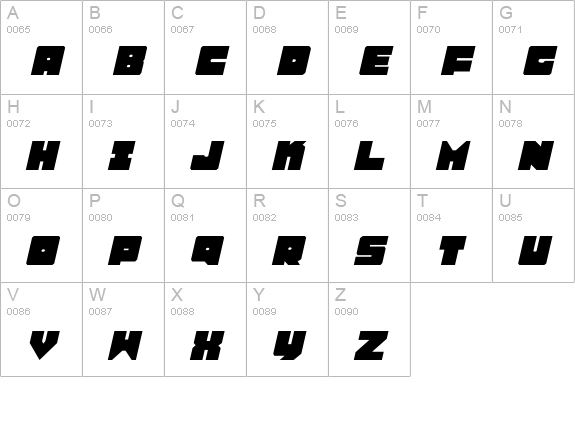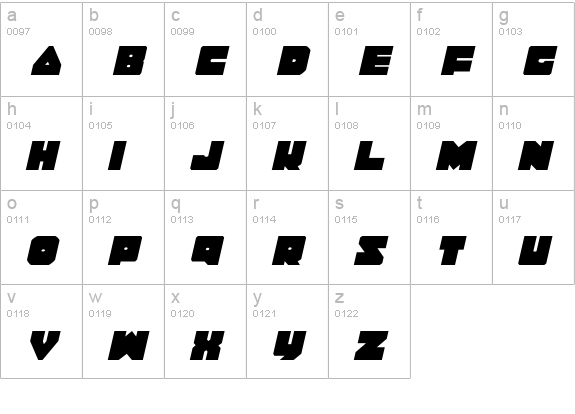
Lobo Tommy Italic Font Details
Lobo Tommy Italic is a distinctive, italic variant in the Lobo typeface family \xE2\x80\x94 well suited to design and typography projects.
Lobo Tommy Italic is a stylish and modern font that exudes sophistication and elegance. Its sleek and slanted design adds a touch of flair to any project, making it perfect for branding, logos, invitations, and more. The italicized letters create a sense of movement and dynamism, drawing the reader's eye with its unique charm. What makes Lobo Tommy Italic even more appealing is that it is completely free to download at FontsMarket.com. This means you can elevate your designs without breaking the bank. Whether you're a seasoned designer or just starting out, this font is a versatile addition to your toolkit. So go ahead and give your projects a touch of class with Lobo Tommy Italic.